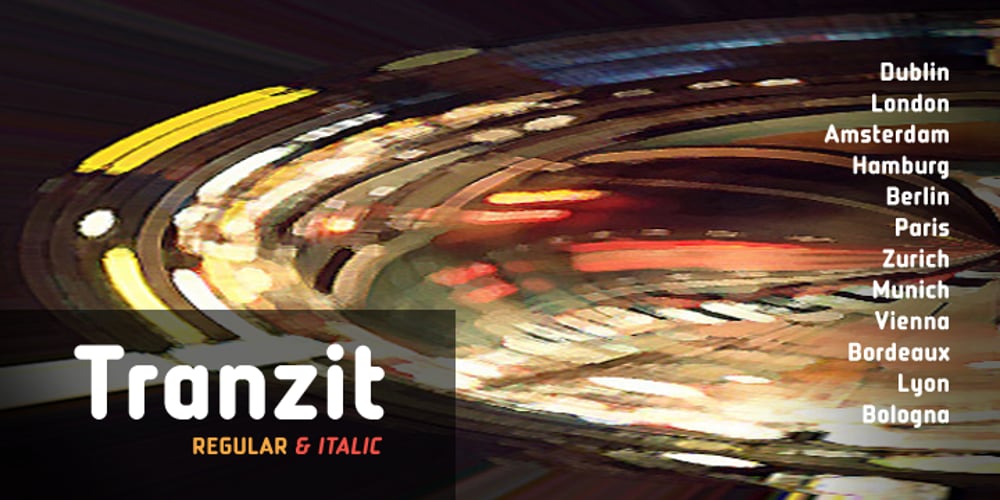
Tranzit Font Family was designed by Joey Stephen Maul and published by Joey Maul. Tranzit contains 2 styles and family package options. Tranzit has a slightly bolder feel as it utilizes rounded characters for a smooth visual flow. It was designed for display and text usage.